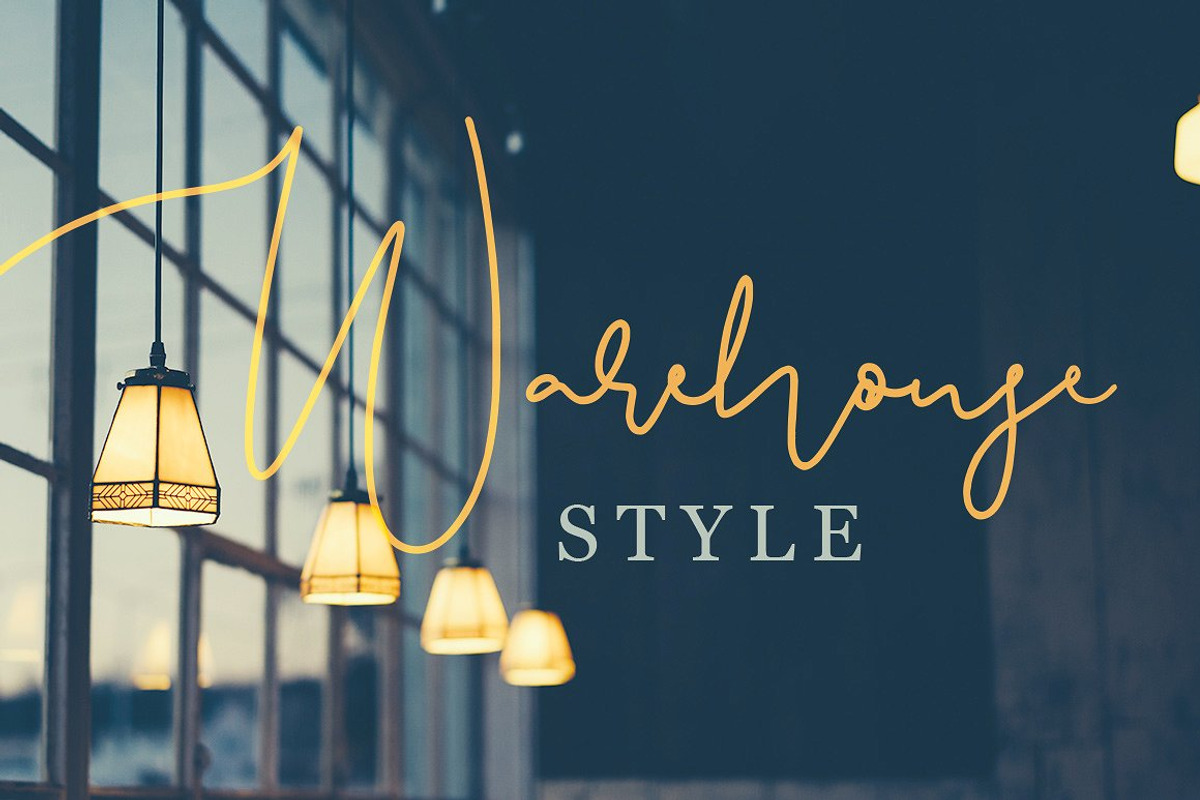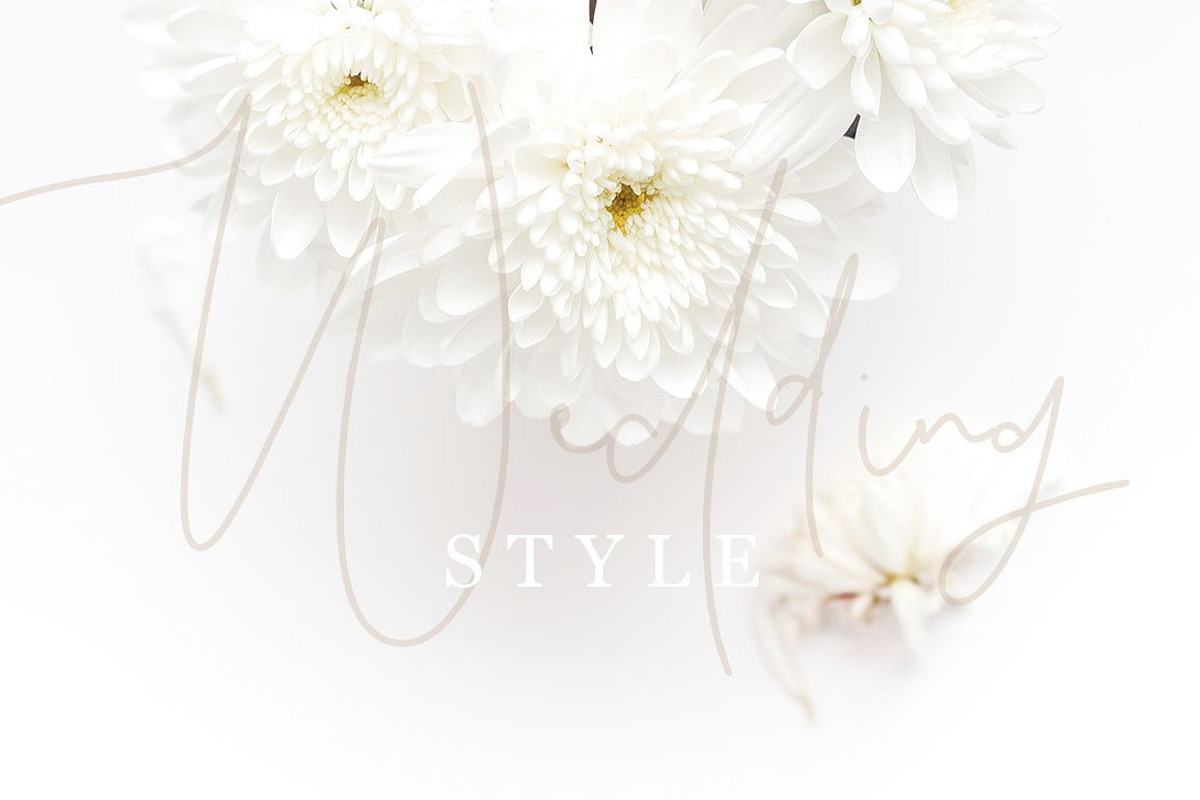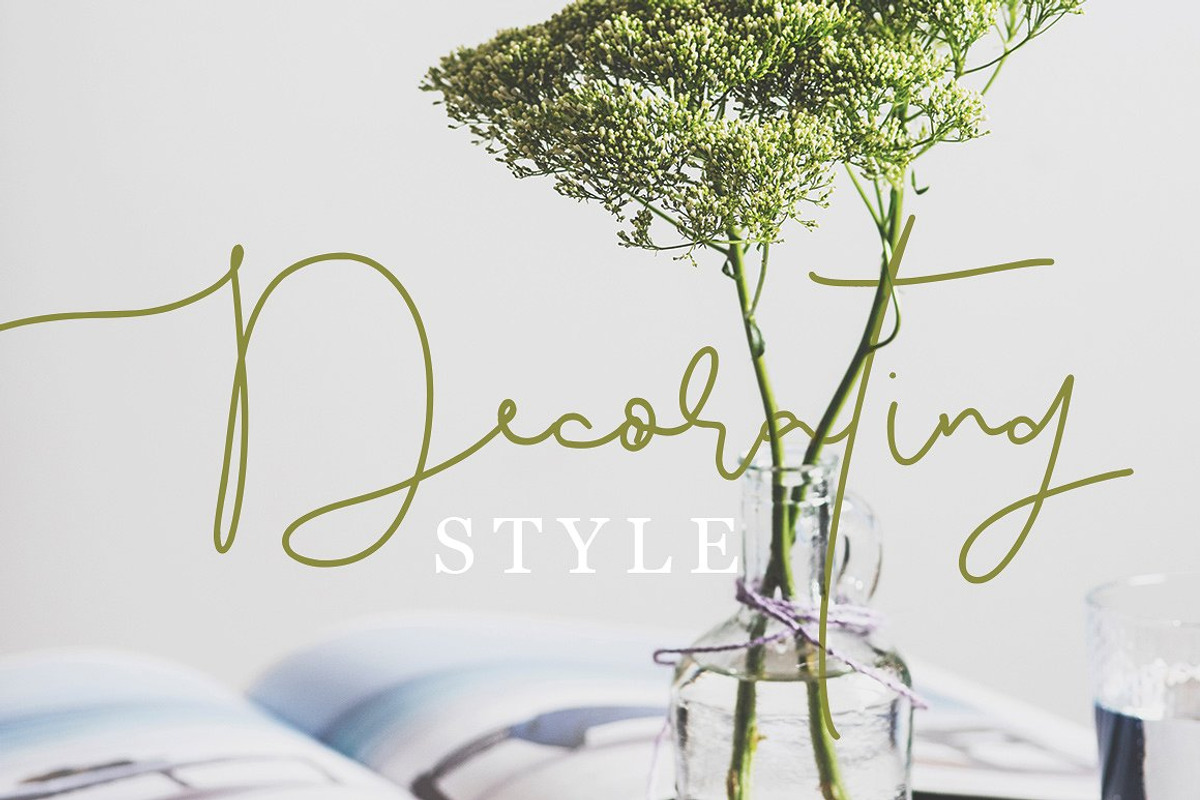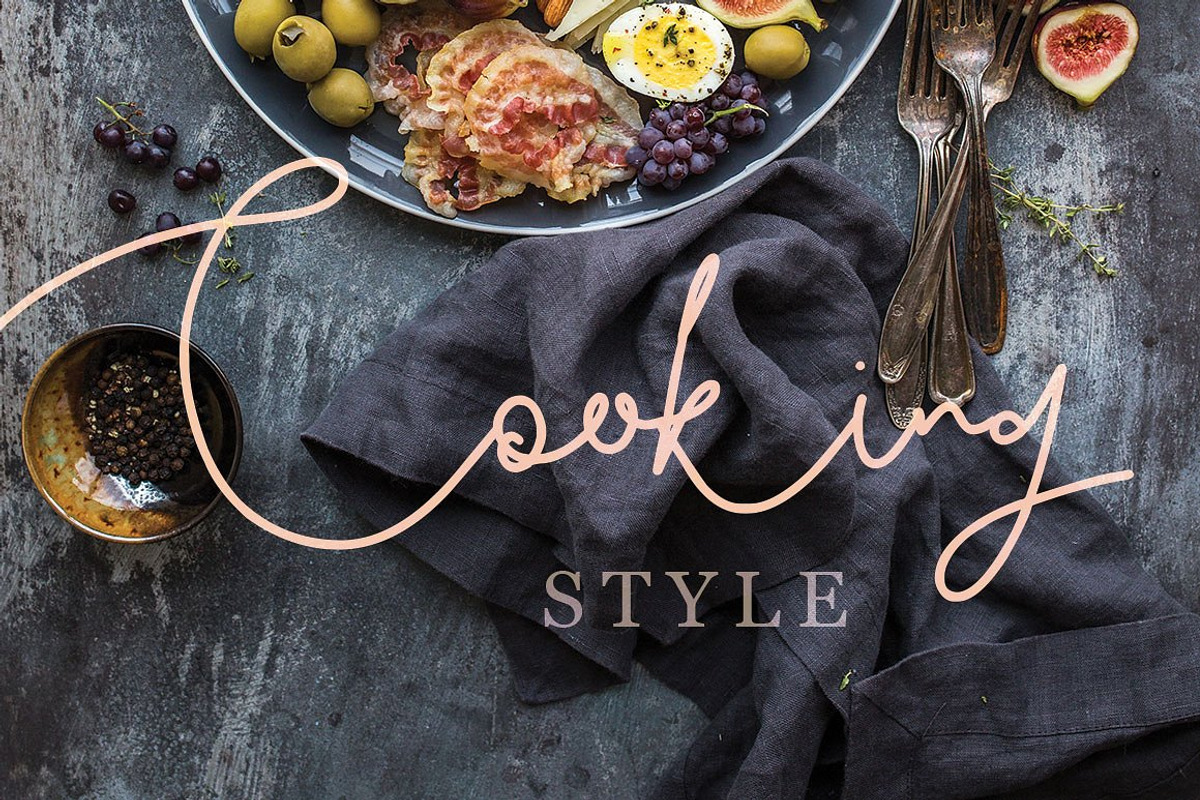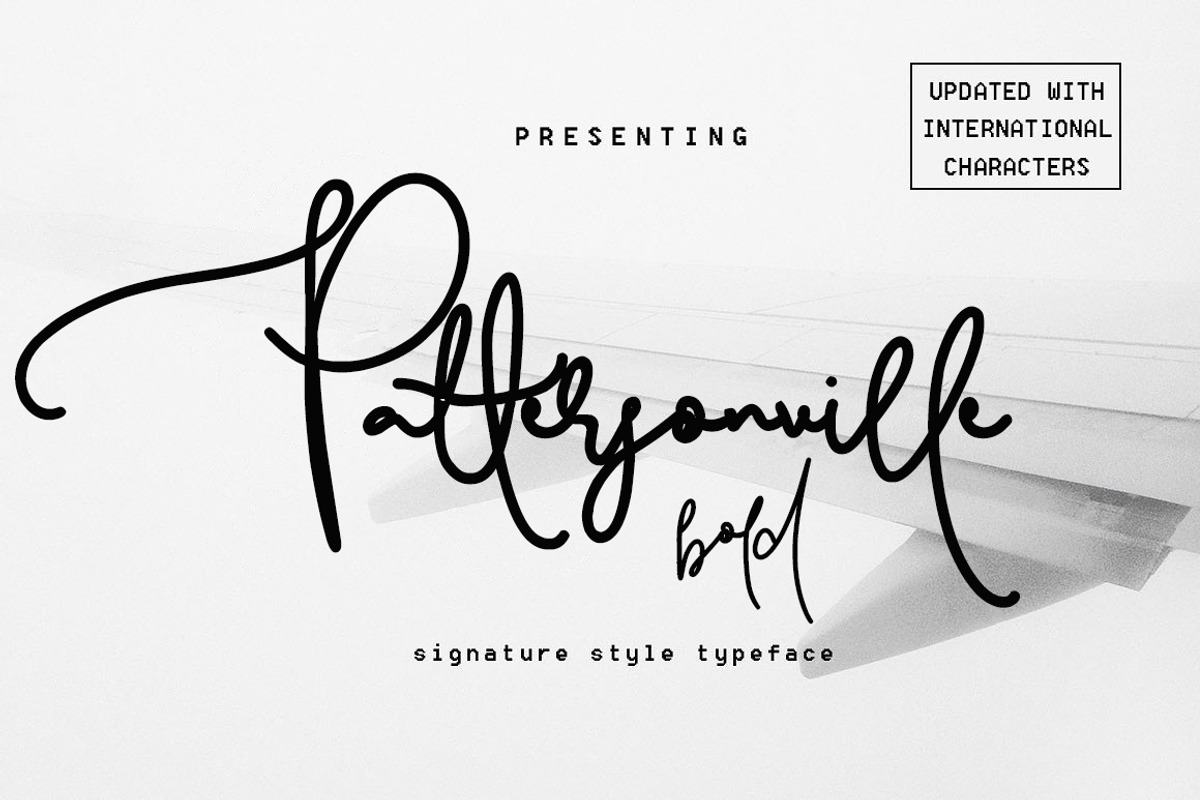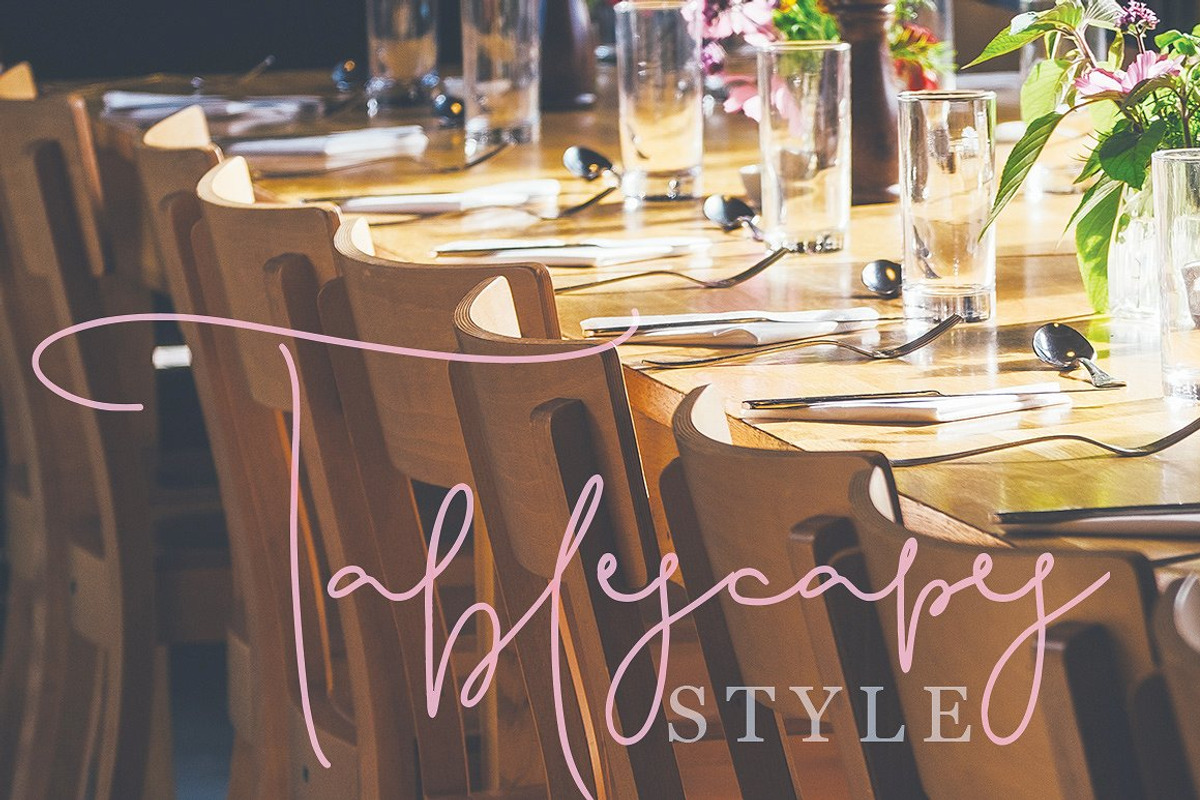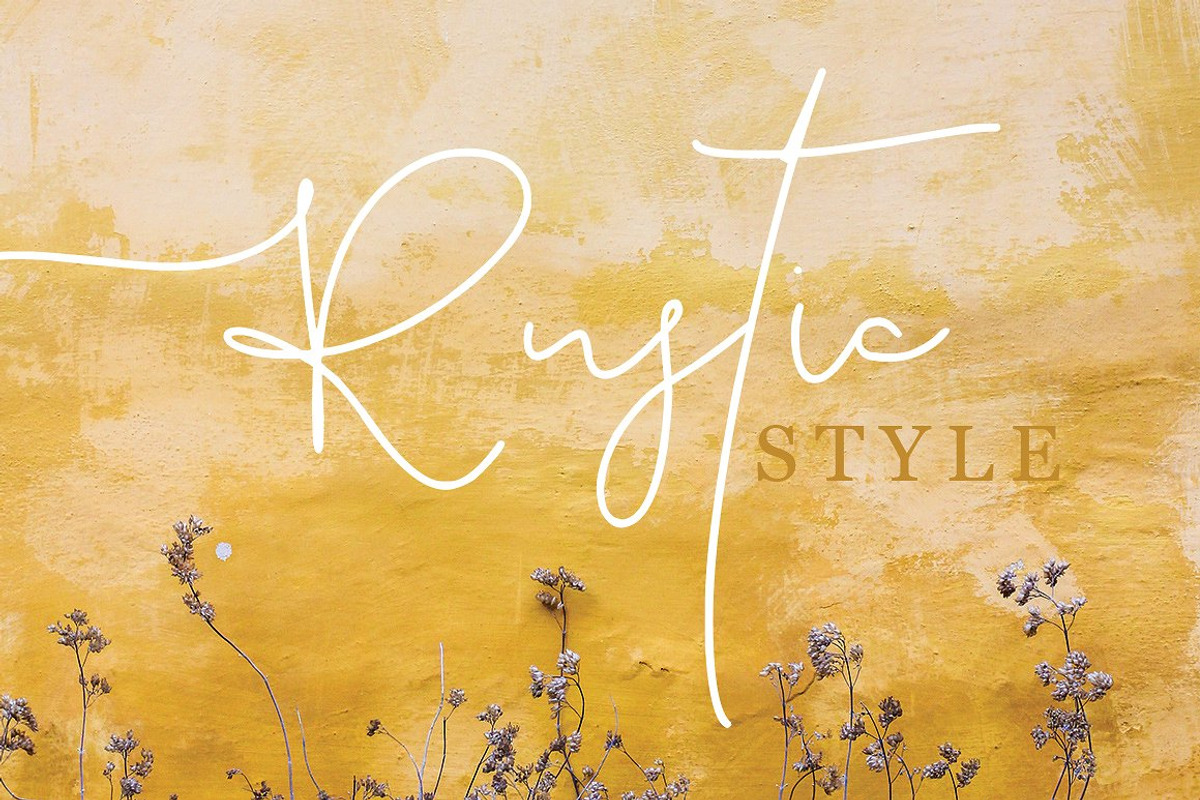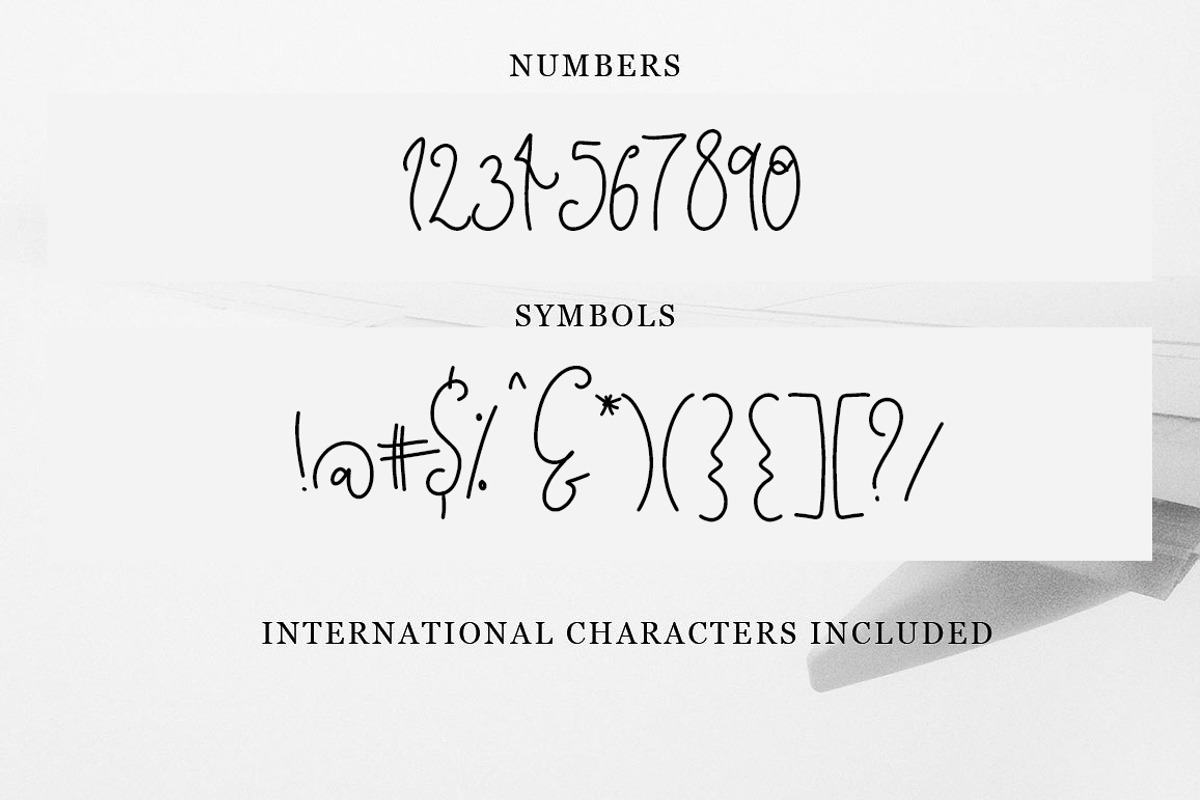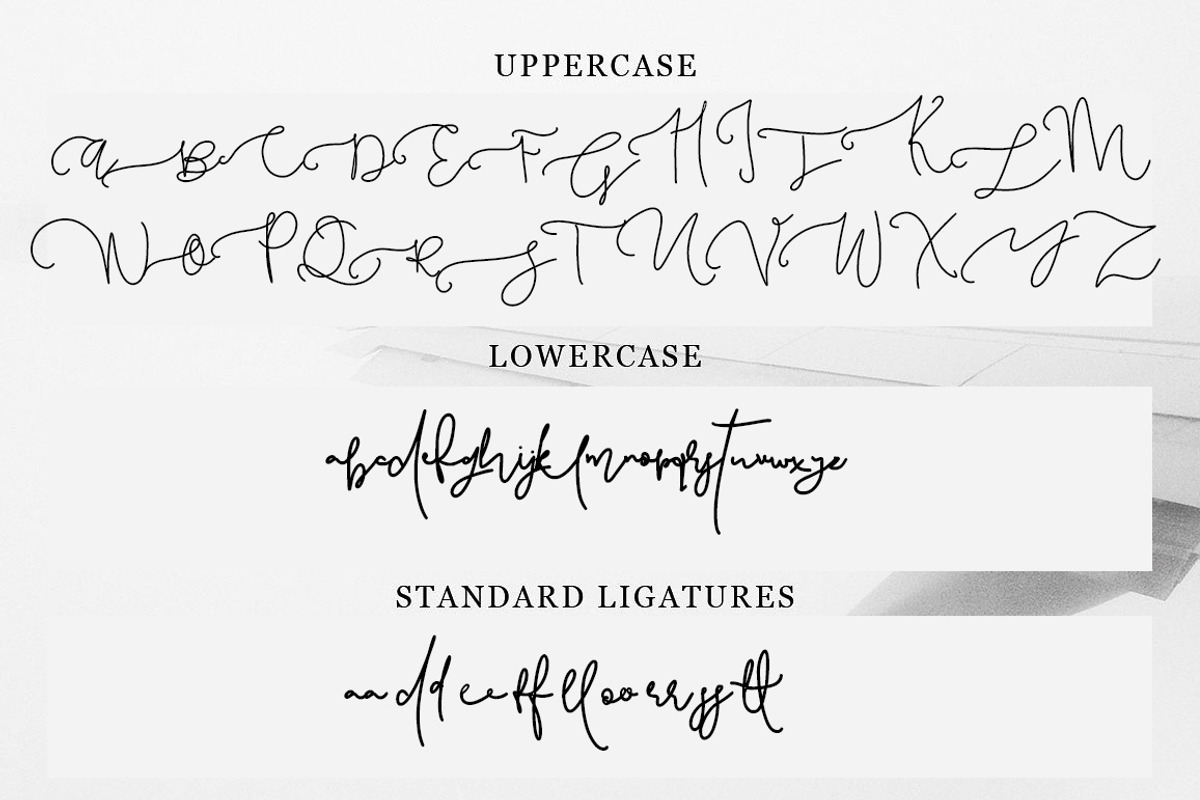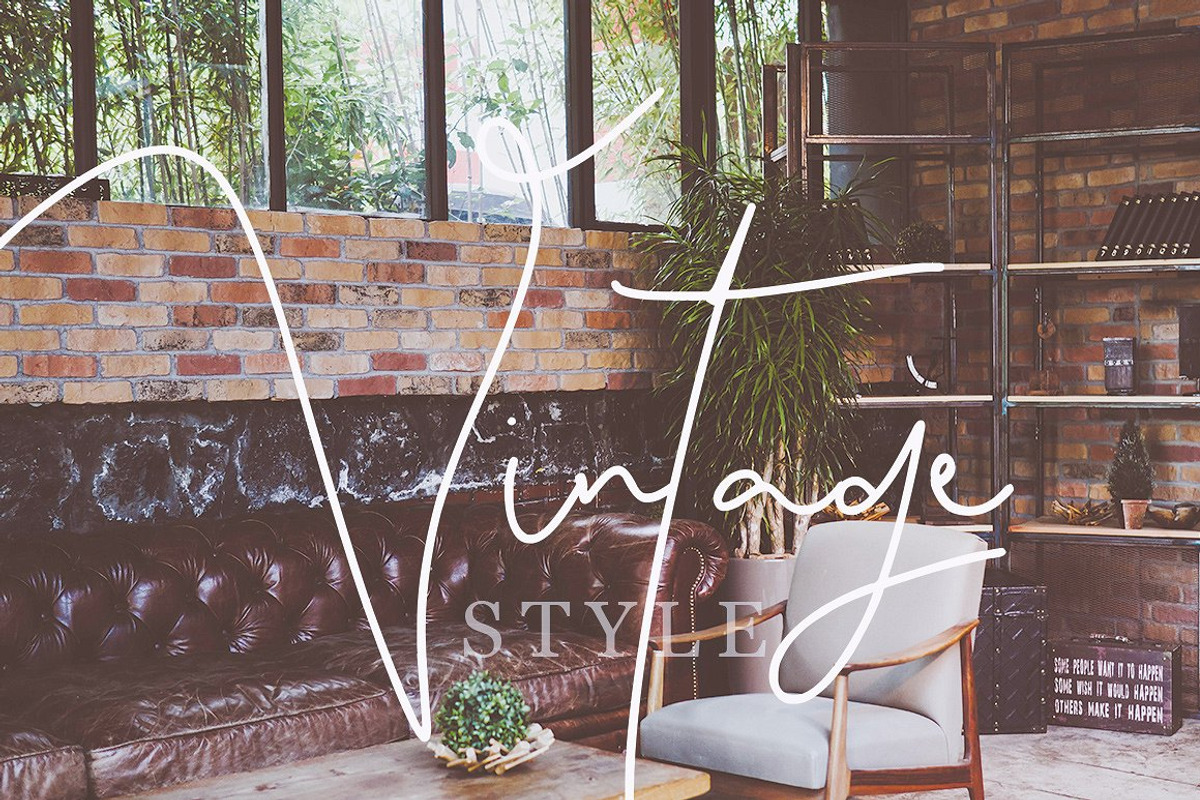
Pattersonville Script Font
UPDATE 17th June - Now includes Bold and Slant versions!
UPDATE - Now includes International Characters, more unique ligatures for double letters, and improved Uppercase G,J, L, Q,
Pattersonville is a signature style handwritten script with so much unique character, making it perfect for every different design style out there.
It includes ligatures for double letters such as dd, ee, ff ll, oo, rr, ss, tt - giving it a genuine hand written look.